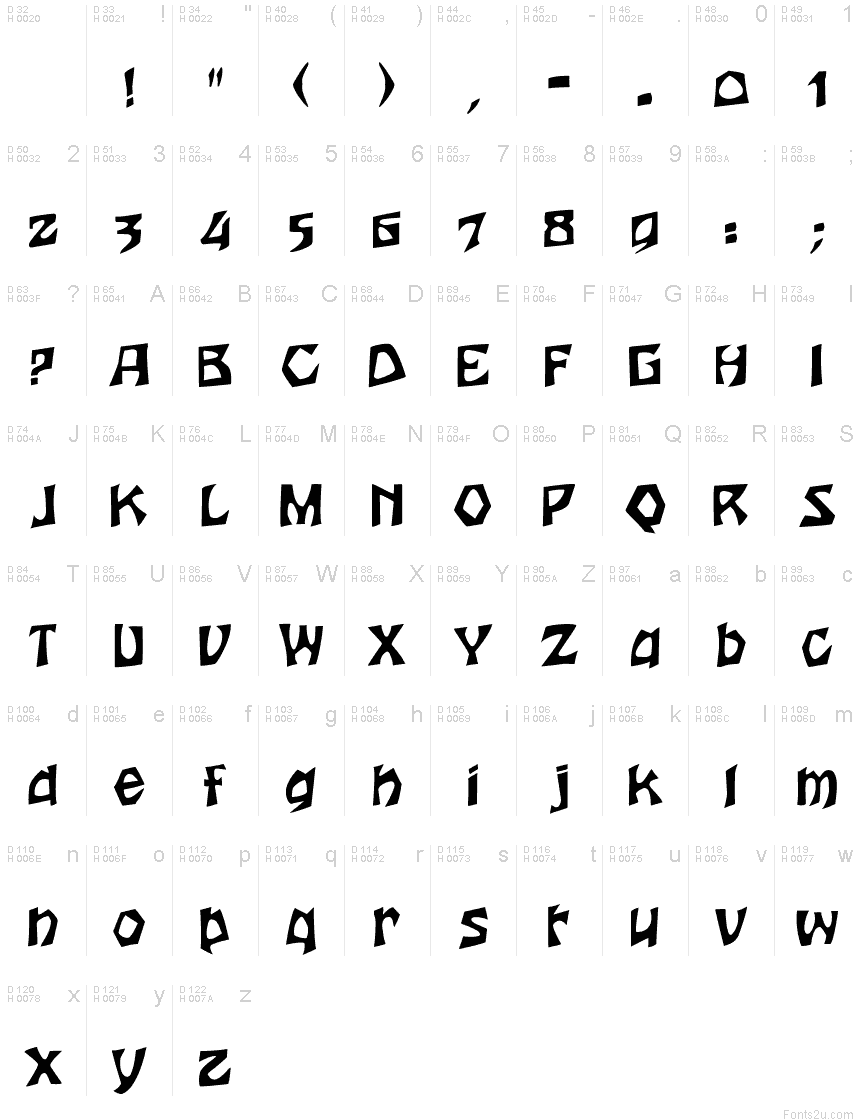
Houters-Normal
Houters font is a free comic display typeface with a wild, hand-cut energy that jumps off the page. Each letter looks like it’s been sliced from black paper with a slightly shaky pair of scissors—angular, crooked, and full of motion. The shapes feel playful yet a bit mischievous, giving your words a bold, offbeat voice that’s impossible to ignore.
Using Houters, you can push titles and logos for gig posters, Halloween graphics, underground zines, skate or streetwear branding, YouTube thumbnails, and game titles into louder, weirder territory. This free font works best when it’s big and bold, with plenty of breathing room around it. Pair it with a clean, narrow sans serif for body text to keep your layouts punchy but readable.